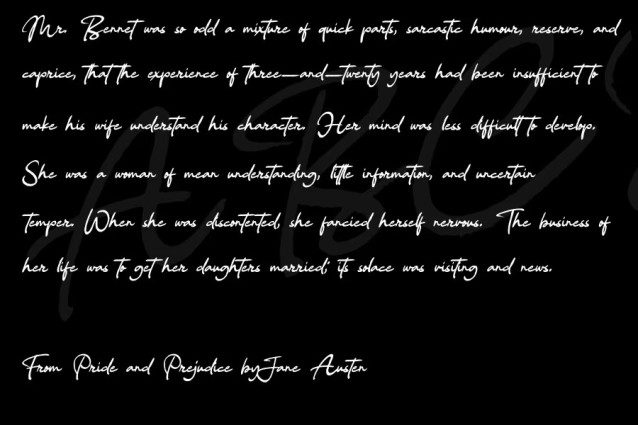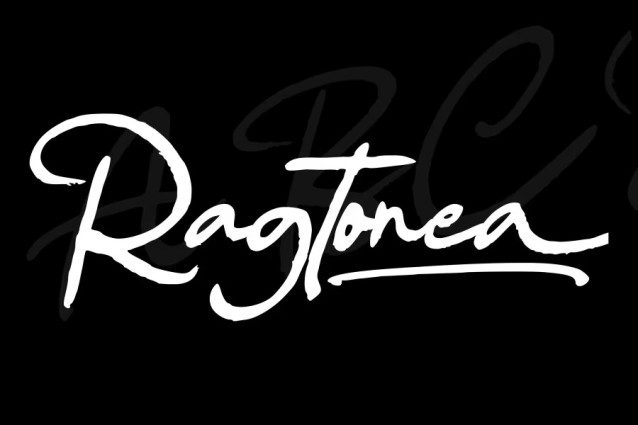
Ragtonea Brush Font
Ragtonea Brush Font is a unique and rough-textured brush handwritten font. This original look will appeal to a wide range of crafty ideas, from letterheads and titles to stationery.